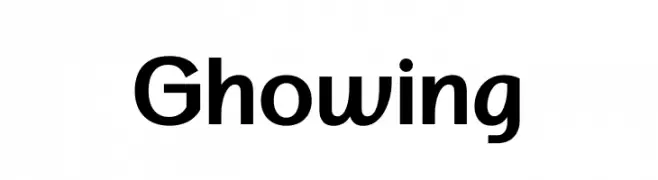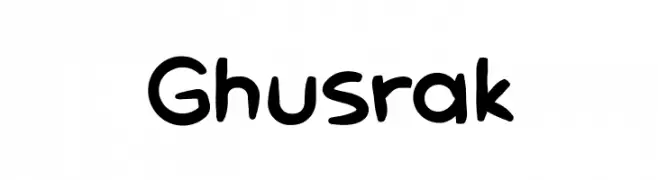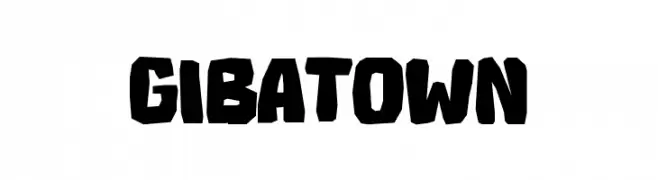
A modern sans-serif font with clean lines and balanced structure.
A playful, handwritten font with bold, rounded characters and a casual vibe.
A dynamic and elegant script font with fluid letterforms and bold numerals.
A playful, bold, and hand-drawn font with cartoonish, rounded outlines.
A bold, playful font with a 3D effect and hand-drawn texture.
A bold, rugged, hand-drawn font with thick, blocky characters.
A classic serif font with high contrast and sharp serifs, exuding elegance and sophistication.
A bold, modern sans-serif font with clean lines and strong presence.
A bold, playful font with a hand-drawn, cartoonish style.